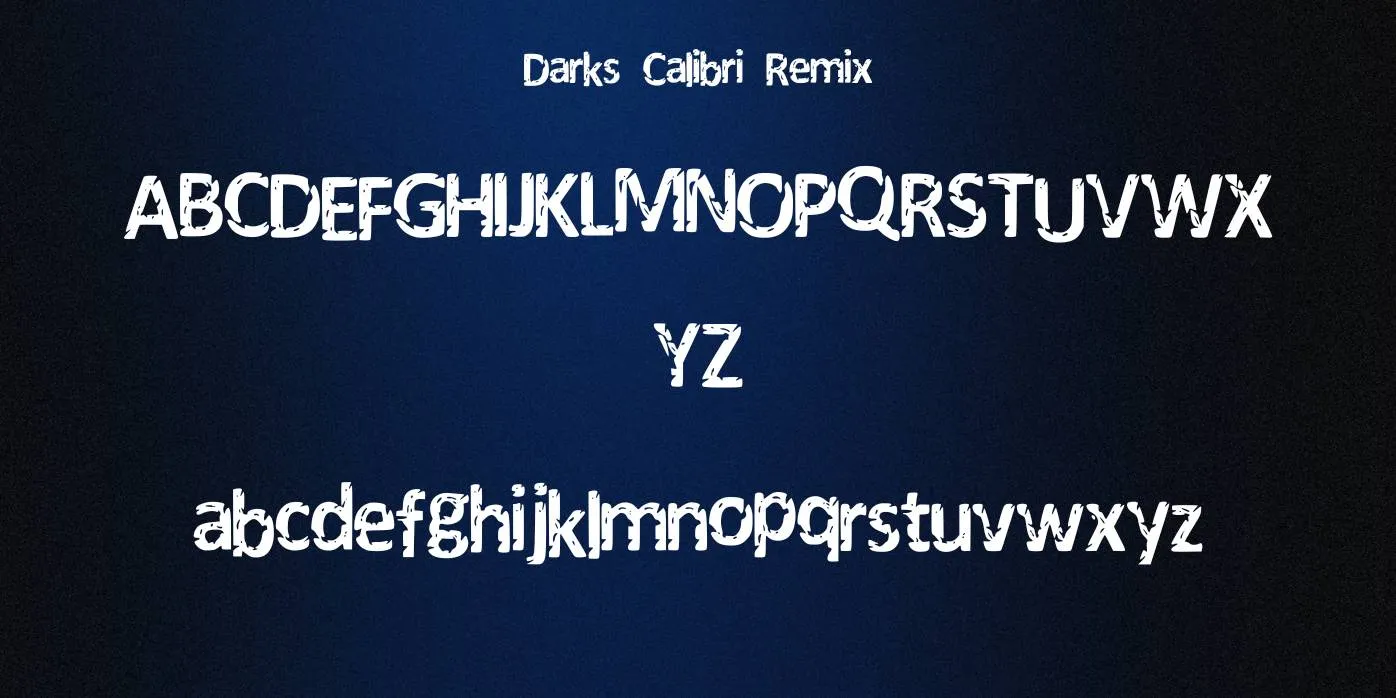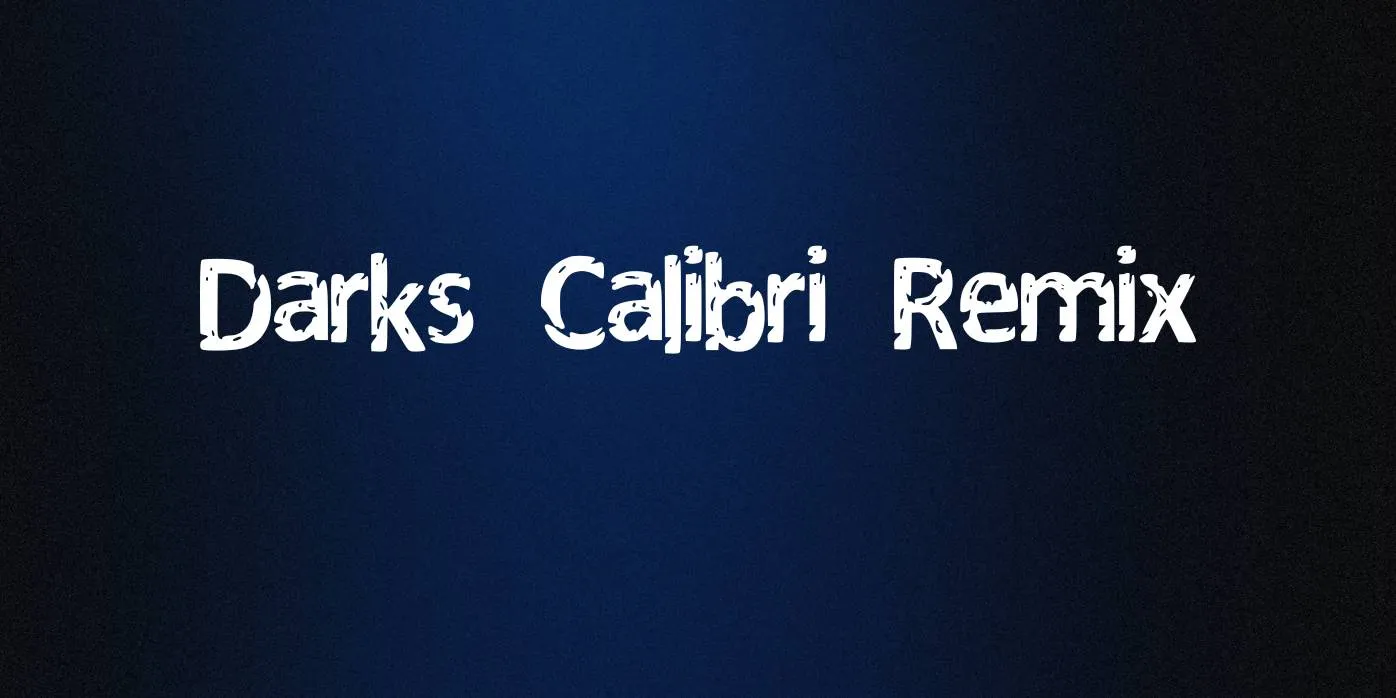
Darks Calibri Remix Font
DarkX ShadowX21 designed this typeface. Darks Calibri Remix Font is a fancy type of texture that has stunning bold, highly readable, and attractive characters. You can use this typeface free for individual usage. If you want to use this typeface to use it in commercial areas then you need permission from the developer to use this typeface.
The typeface that is best for pairing with this typeface is the shiny flakes font. This pair will give you the extraordinary results. Moreover, this typeface has a lot of uses in the highlighting materials. This typeface has no fixed pitch.
This typeface has the unequal-spaced characters. This will look stunning on your designs.